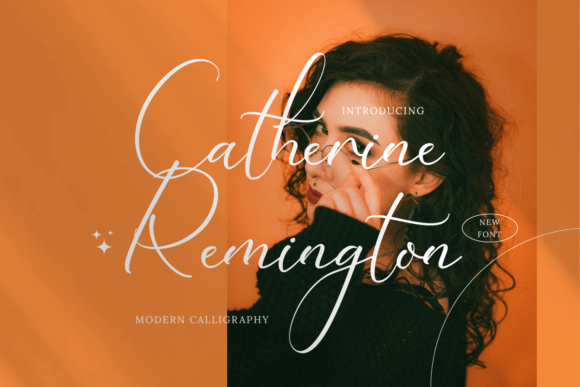
Catherine Remington Font: Elevate Your Designs with Elegance
Catherine Remington is an exquisite handwritten font that has captured the hearts of designers and typography enthusiasts alike. With its masterful blend of classy calligraphic influences and contemporary flair, this stunning font is sure to become a true favorite in your collection. In this article, we’ll dive into the world of Catherine Remington, exploring its unique features, and discovering how it can elevate your projects to new heights.
The Story Behind Catherine Remington
Catherine Remington is more than just a font – it’s a work of art. Designed with meticulous attention to detail, this handwritten font combines the elegance of traditional calligraphy with the freshness of modern typography. The result is a typeface that exudes sophistication, making it perfect for a wide range of design applications, from luxury branding to wedding stationery.
Key Features of Catherine Remington
- Exquisite Handwritten Style: Catherine Remington boasts a beautiful, handwritten aesthetic that adds a personal touch to any design.
- Classy Calligraphic Influences: The font’s calligraphic roots are evident in its elegant strokes and refined letterforms.
- Contemporary and Fresh: Despite its classic influences, Catherine Remington feels modern and fresh, ensuring your designs stay current.
- Highly Versatile: This font is suitable for a variety of projects, including logos, branding, packaging, and more.
What Makes Catherine Remington Stand Out?
In a world where fonts are plentiful, Catherine Remington stands out from the crowd. Its unique blend of traditional and modern elements creates a distinctive look that’s both eye-catching and memorable. Whether you’re working on a high-end brand campaign or a personal project, this font is sure to make a lasting impression.
How to Use Catherine Remington in Your Designs
- Branding and Logo Design: Use Catherine Remington to create a sophisticated brand identity that exudes luxury and refinement.
- Wedding Stationery: Add a touch of elegance to your wedding invitations, programs, and other stationery with this beautiful font.
- Packaging Design: Elevate your product packaging with Catherine Remington’s refined, high-end aesthetic.
Catherine Remington is an exceptional handwritten font that deserves a place in your typography arsenal. Its masterful blend of classic calligraphic influences and contemporary flair makes it an ideal choice for designers seeking to elevate their projects. With its versatility, elegance, and fresh aesthetic, Catherine Remington is sure to become a favorite in your collection.